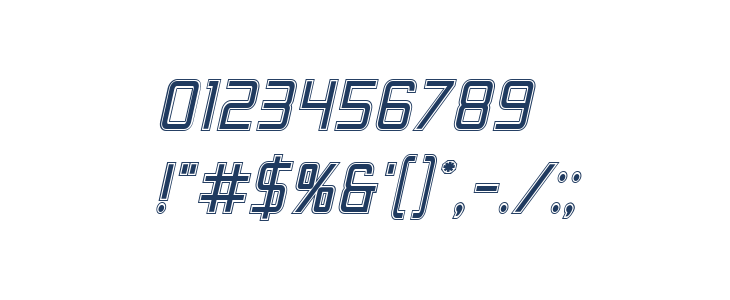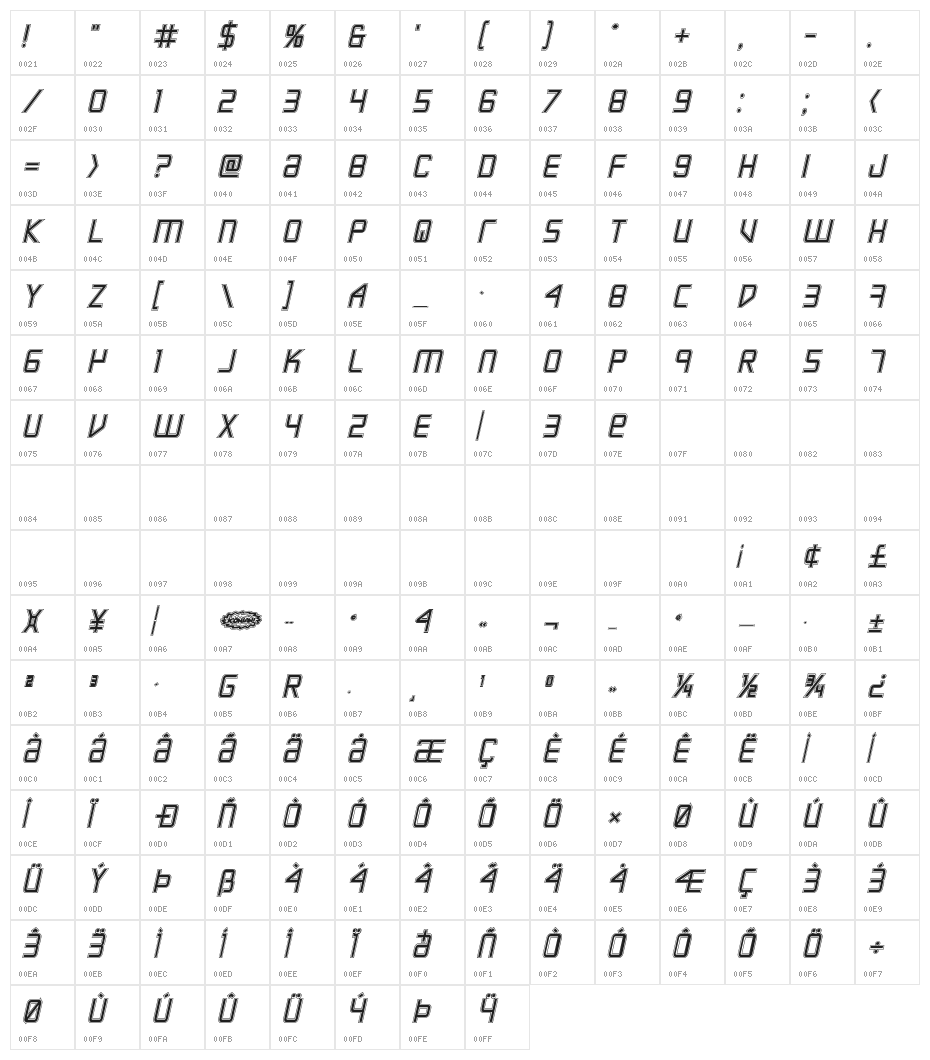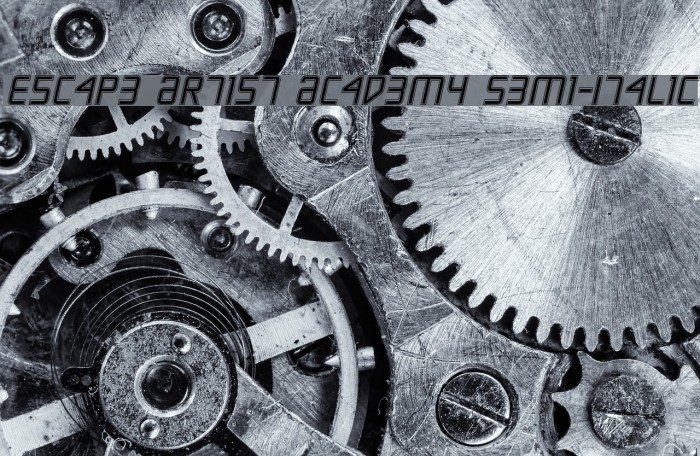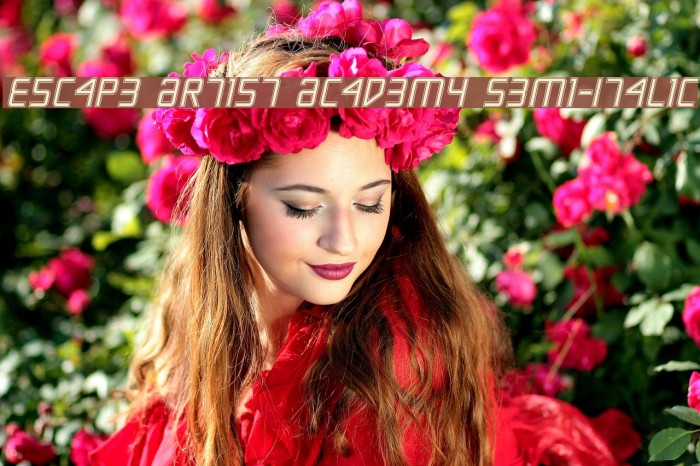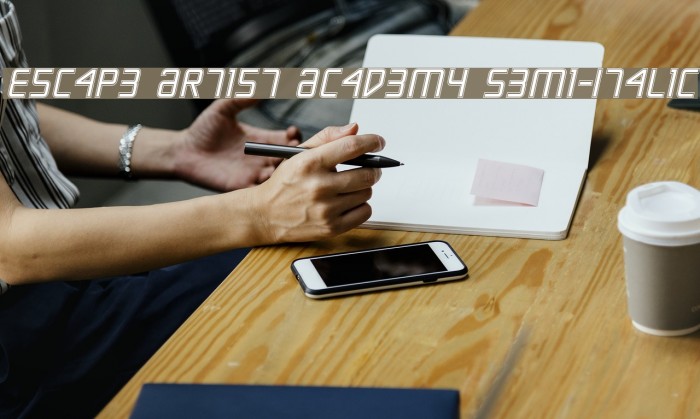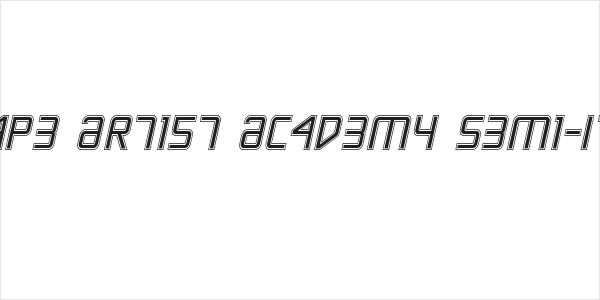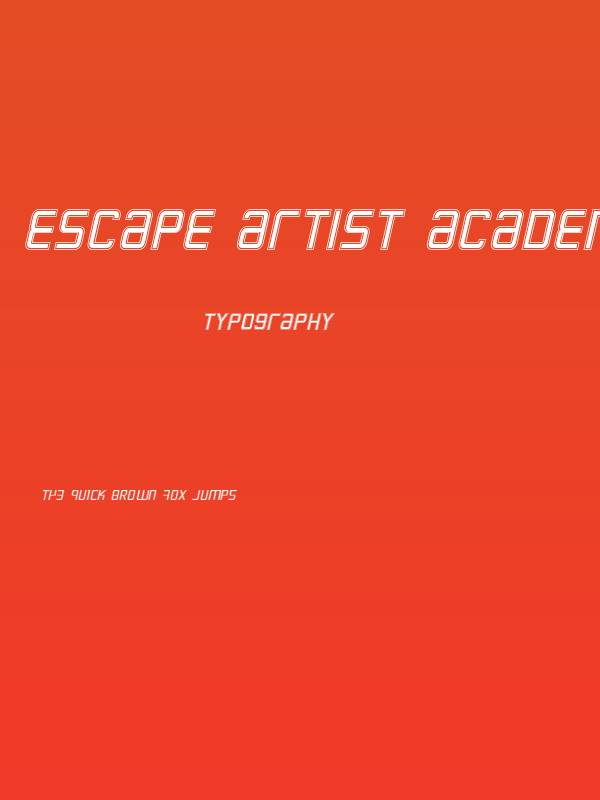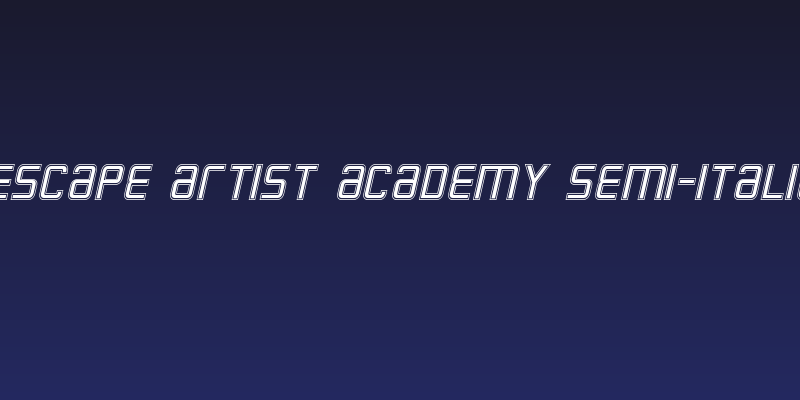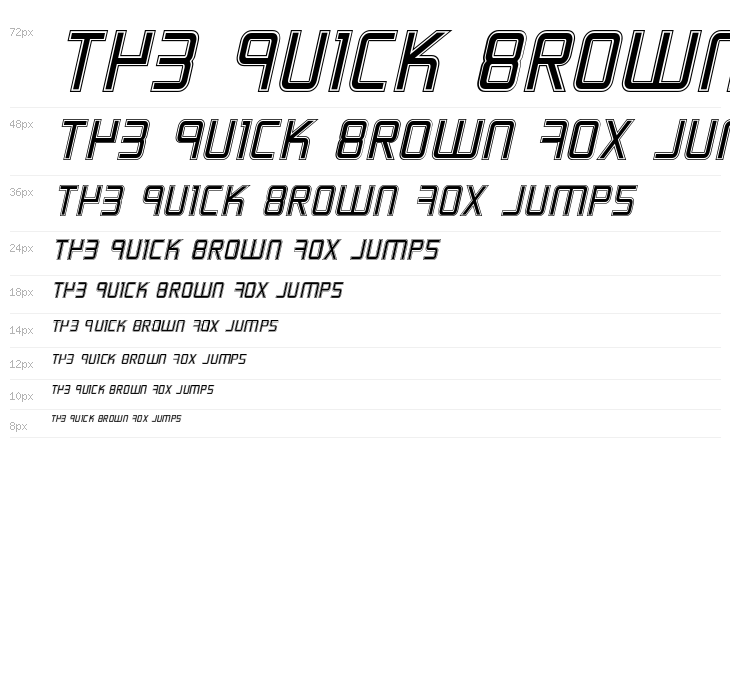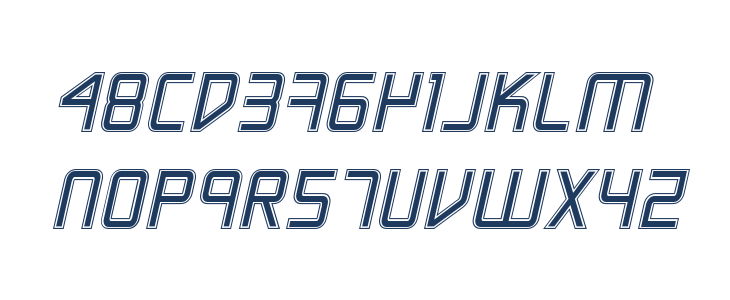
Escape Artist Academy Semi-Italic Font
Escape Artist Academy Semi-Italic Description
This font features a dynamic and modern design with a semi-italic slant, giving it a sense of motion and energy. The characters are outlined, creating a bold and striking appearance that stands out. The geometric structure of the letters is complemented by sharp angles and clean lines, making it suitable for contemporary and futuristic designs. The font maintains a consistent stroke width, ensuring readability while adding a unique flair. Its distinct style is ideal for projects that require a touch of innovation and creativity.
Proposed ProjectsIdeal for branding, sports team logos, tech-related projects, and modern advertising campaigns.